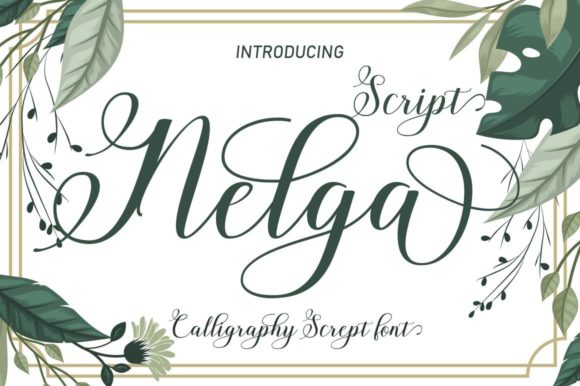
Welcome to the world of Nelga Script, an alluring script font family that exudes both charm and elegance. Its graceful curves and delicate strokes dance across your digital canvas, leaving a trail of visual enchantment. Let Nelga Script take you on a journey of creativity, where words transform into works of art and your designs blossom with a touch of handwritten magic.
With Nelga Script, your wedding invitations, thank-you cards, quotes, greeting cards, logos, business cards, and any design craving a personal touch will radiate with sophisticated beauty. It's a font that speaks volumes, adding a layer of emotional depth to every project. The PUA encoding ensures effortless access to a treasure trove of glyphs and swashes, empowering you to unlock the full potential of Nelga Script's expressive range.
Imagine your wedding invitation adorned with Nelga Script's flowing letters, each stroke a testament to your love story. Your thank-you cards will carry a heartfelt message of gratitude, elegantly penned in Nelga Script's graceful hand. Quotes and greetings will come alive with an artistic flair, captivating your audience with their visual allure. And your business cards will make a lasting impression, exuding professionalism and creativity in equal measure.
Nelga Script is more than just a font; it's an invitation to explore the realm of artistic expression. Its versatility knows no bounds, adapting seamlessly to a symphony of creative projects. Let Nelga Script ignite your imagination and elevate your designs to new heights of sophistication. Embrace the beauty of handwritten artistry and let Nelga Script transform your digital creations into masterpieces.